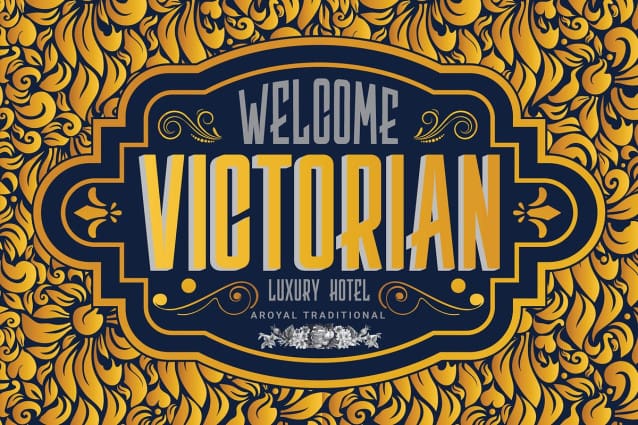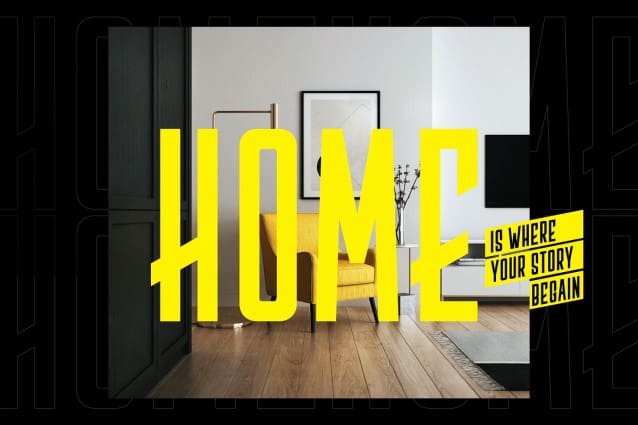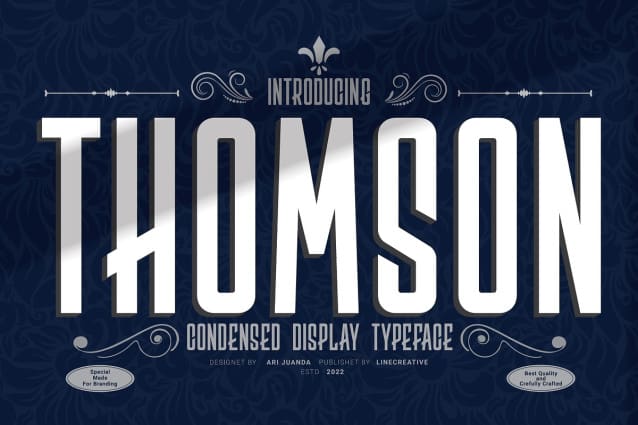
Thomson Font
Thomson Font is is an Condensed font with a modern look, It’s Perfect for branding, logo design, shirts, name card, magazin layout,headers, or oven large scale artwork